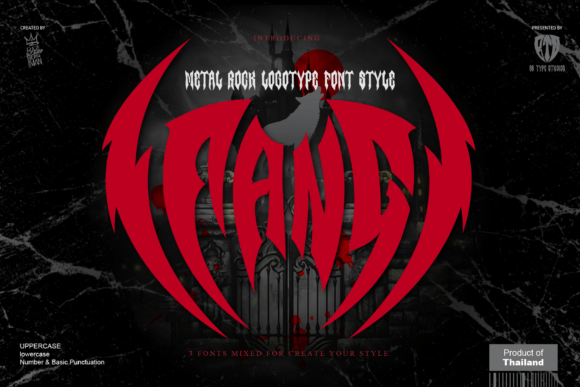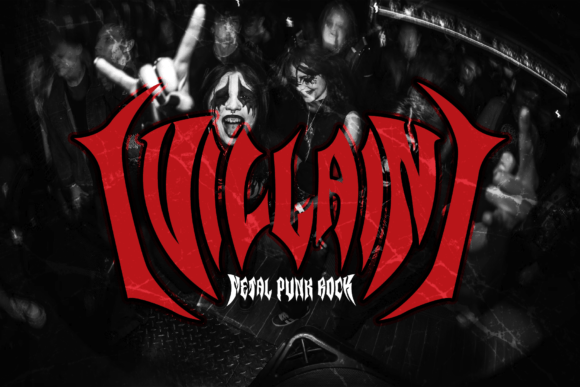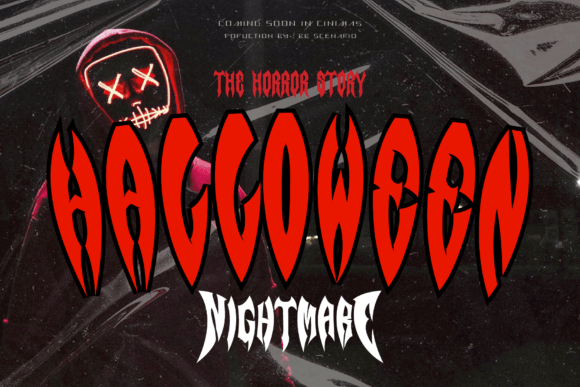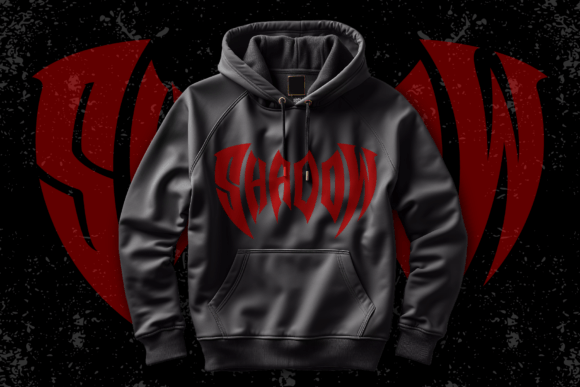
Fang Font: A Bold Heavy Metal Display Font for Logos
About the Fang Font
Experience the unique personality of Fang Font, a font designed for impact. Introducing Fang, the ultimate heavy metal font, primed to transfigure your rock music posters and T-shirt graphics. With its audacious demeanor authentically embodying the vitality of the genre, Fang is engineered to give your logos an impactful punch that represents your heavy metal spirit. Go ahead and tap into your boundless creativity, let Fang help you turn up the volume on your design vision to its peak. Embrace the amplification that Fang brings to your ideas!
Fang’s aggressive forms make it ideal for headlines, short impactful statements, and logos where a bold, rebellious aesthetic is desired. It excels in poster design, branding for metal bands or related businesses, and even select packaging applications requiring a strong visual punch. However, its heavy weight and sharp serifs render it unsuitable for body text or UI elements where readability is paramount. Long blocks of text set in Fang will be difficult to read.
Consider pairing Fang with a clean sans-serif like Montserrat for a balanced contrast, or a more geometric typeface like Futura for a modern, high-impact feel. For a slightly softer approach, a neutral serif like Garamond could work surprisingly well, tempering Fang’s aggression. Avoid pairing it with other overly decorative or similarly heavy fonts, which would create visual clutter.
Fang’s personality is undeniably bold, aggressive, and rebellious. It projects raw energy and a powerful, unapologetic stance, making it perfect for brands that want to communicate strength and uncompromising style.
Fang Font Usage Examples
Fang Font Example